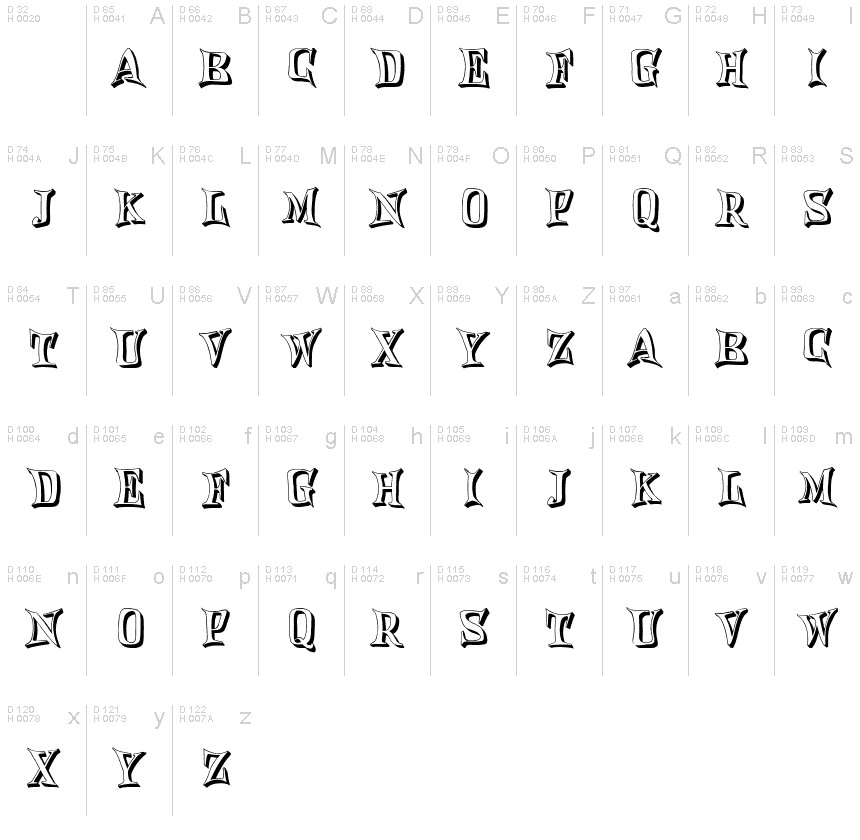
Xiaomi Regular
Xiaomi is a striking display font designed by Vladimir Nikolic. Its unique distorted 3D serif style creates a bold and impactful visual statement, perfect for catching the eye and making a lasting impression. With its futuristic yet refined design, Xiaomi is ideal for use in branding projects, advertising campaigns, and digital media that require an edgy and modern look. This semi-bold typeface is best suited to headlines, logos, and titles that need to stand out from the crowd. Whether you're designing a cutting-edge tech website or creating attention-grabbing packaging for your product, Xiaomi is the font that will make your project unforgettable.